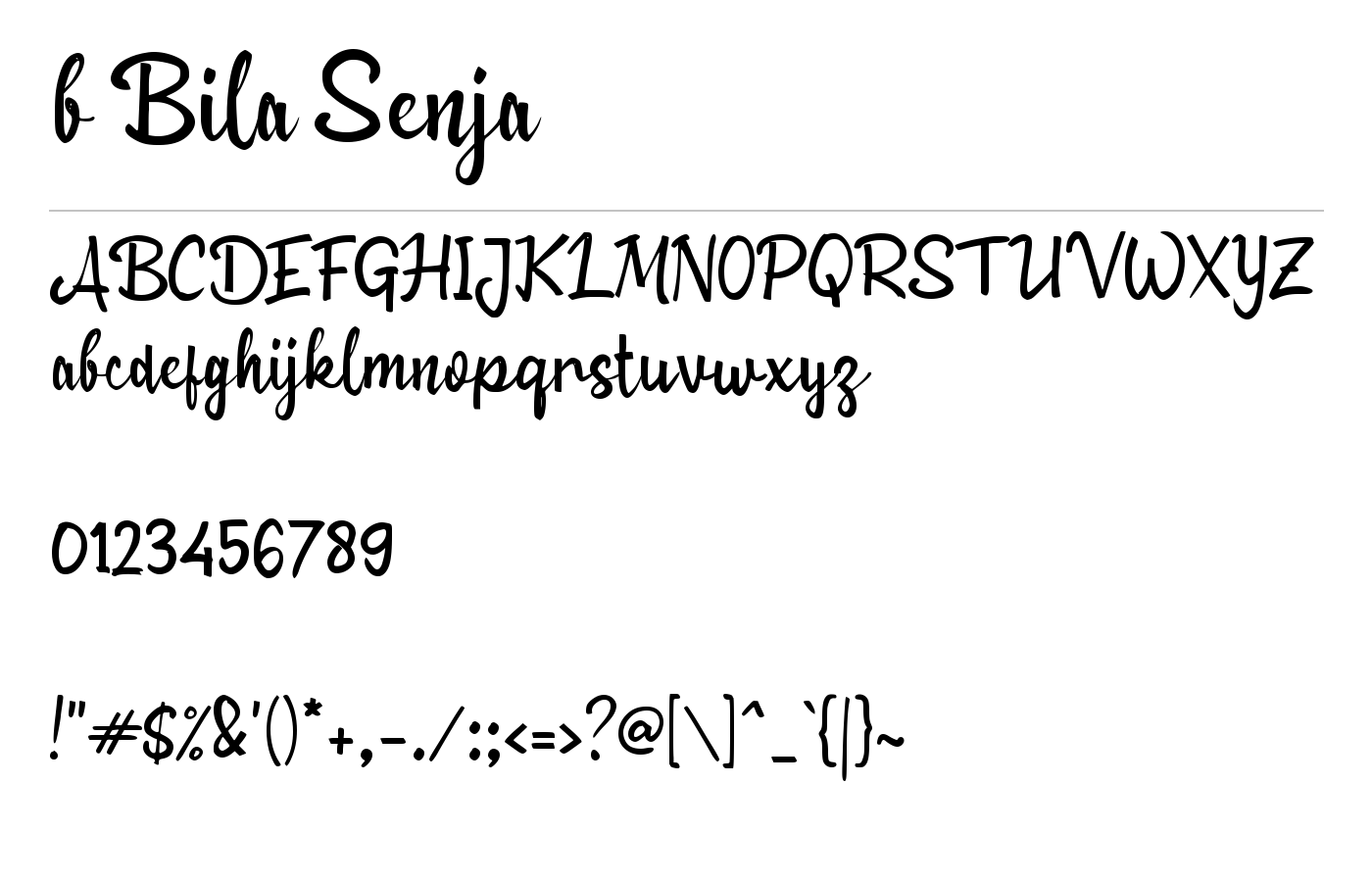
b Bila Senja is a playful and casual handwritten script font with a friendly, warm personality. Its irregular stroke weight and unique letterforms, including single-story "a" and rounded curves, give it an approachable and creative feel, perfect for projects seeking a personal, informal touch. This font works well for greeting cards, branding, social media posts, and any design needing a lively and charming handwritten style.
b Bila Senja Font
About b Bila Senja Font